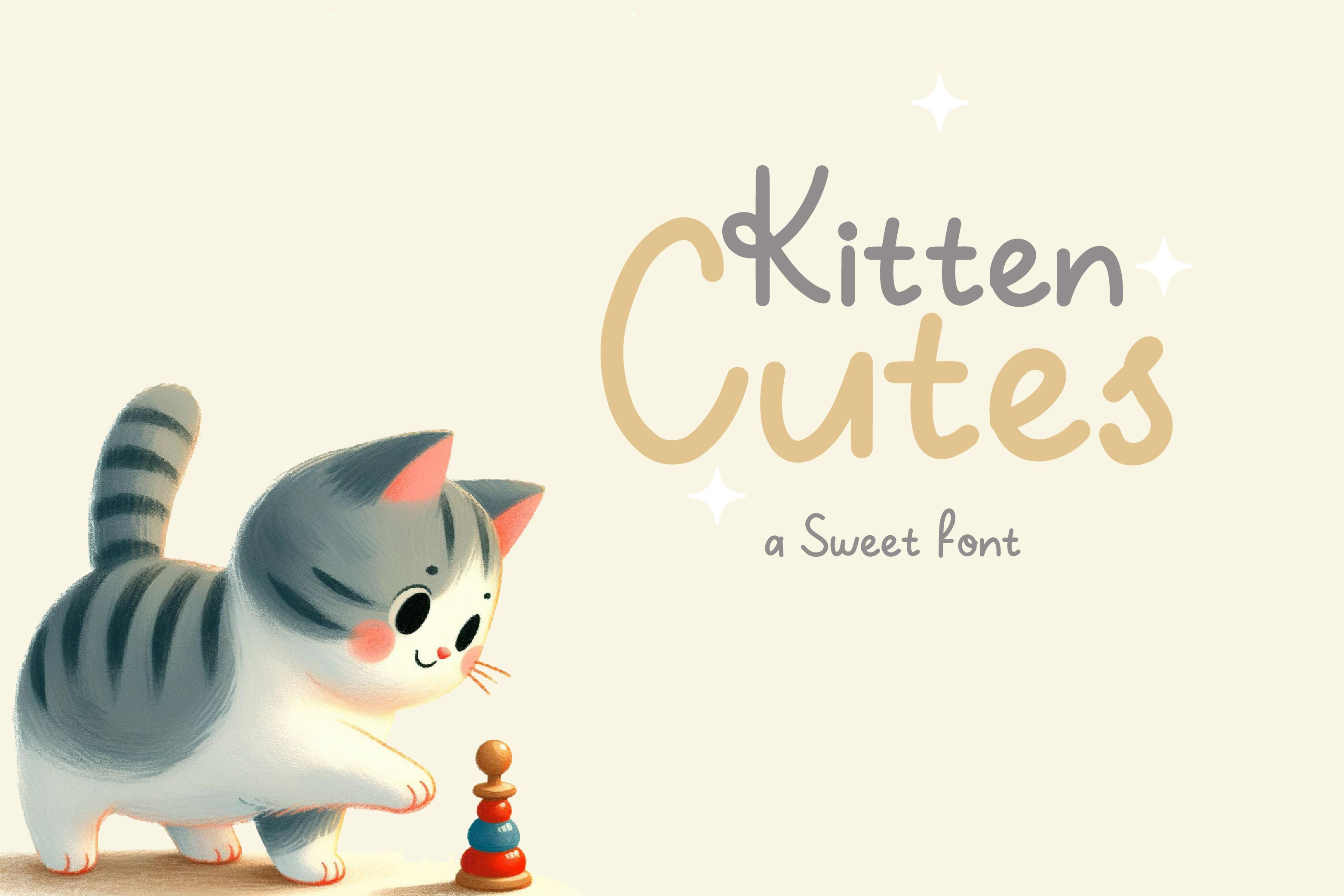
Kitten Cutes Font
adorable handwritten font You can use this cute font for various purposes, to infuse your creations. with charm and playfulness! Whether it’s quotes, greeting cards, invitations, posters, business cards, presentations, or any creative project, this font is poised to elevate your design with a touch of whimsy and joy!
-Upper/lowercase, numbers, punctuations.